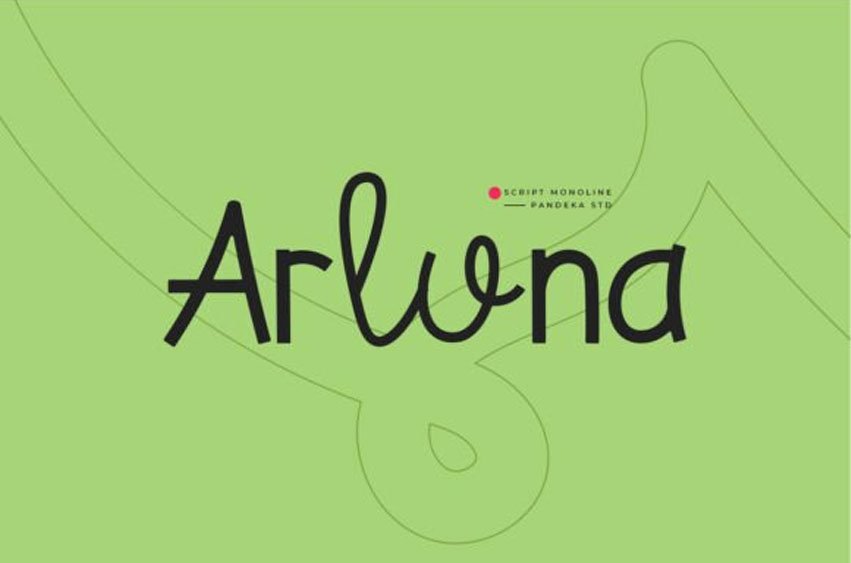
Arluna Font is a casual modern script font with uniquely crafted, flowing letterforms.
Perfect for branding, invitations, social media, and elegant typography, Arluna adds a charming and sophisticated touch to any design!